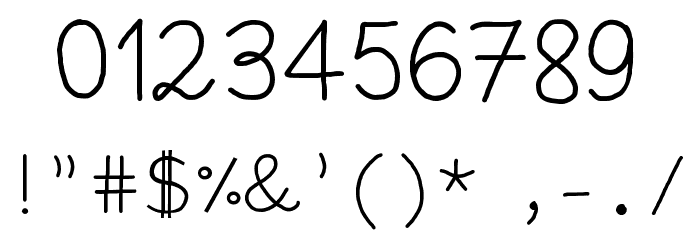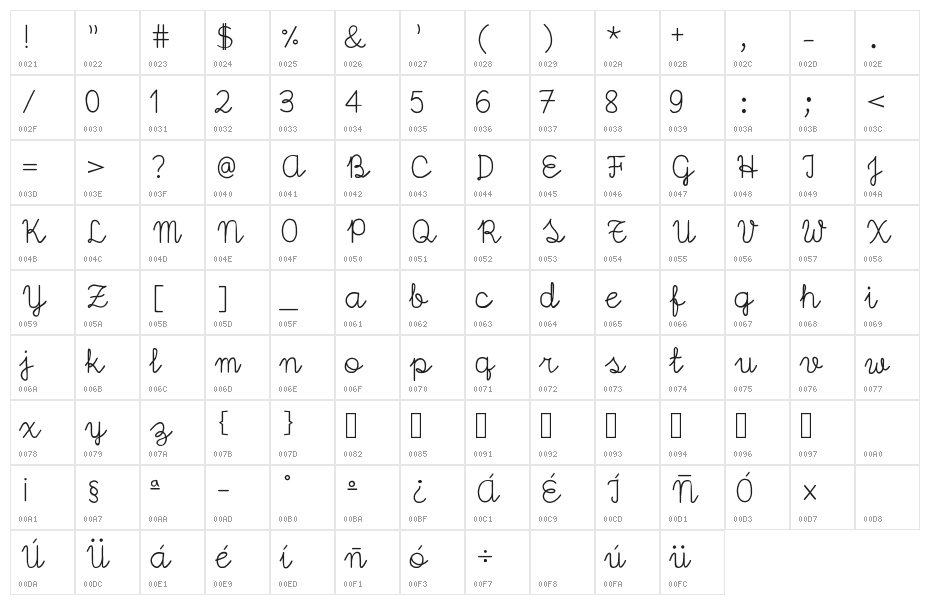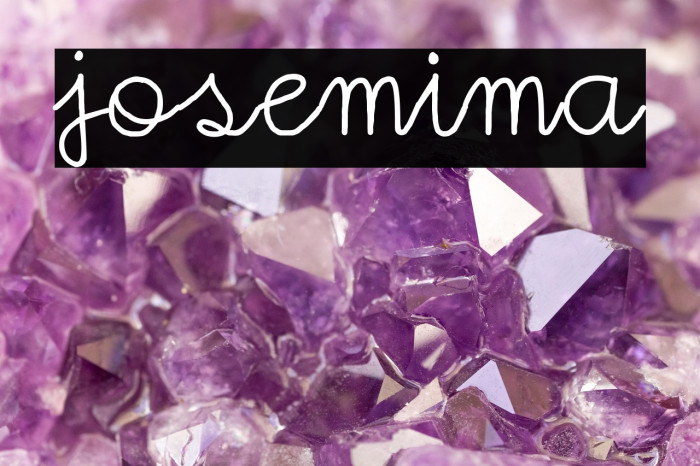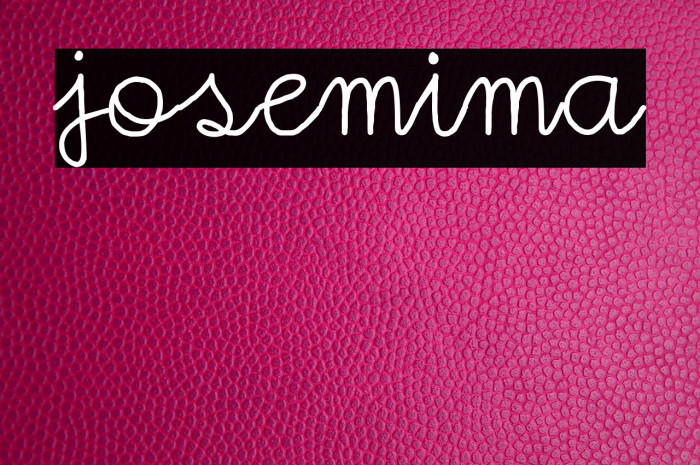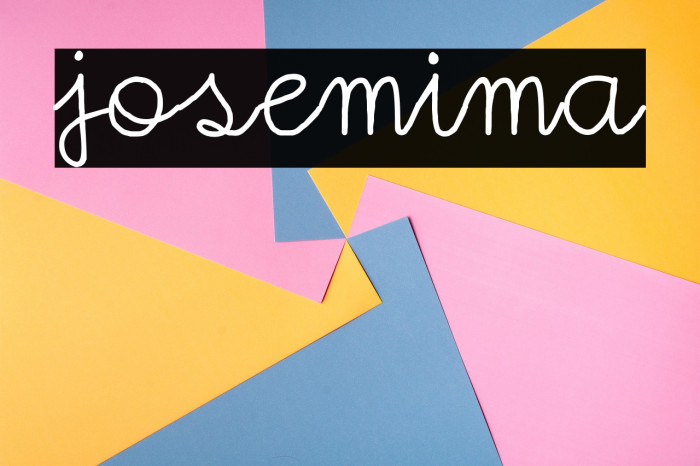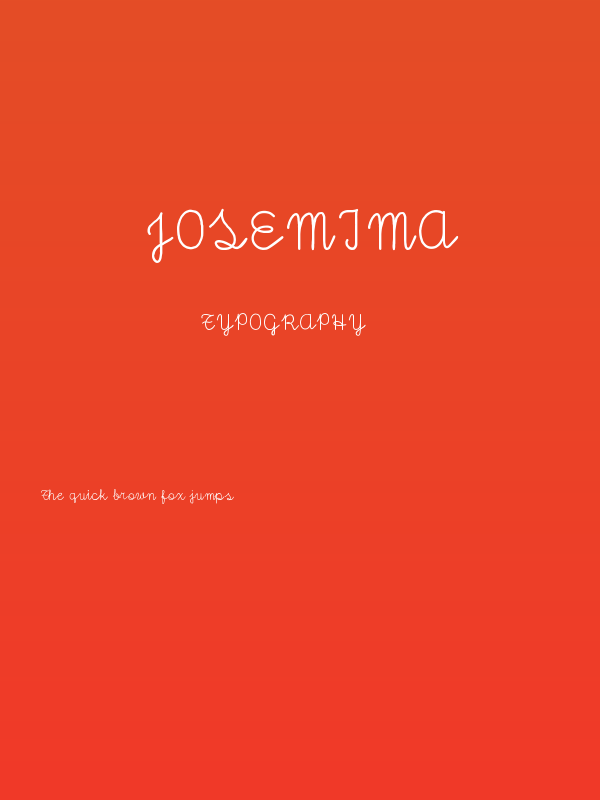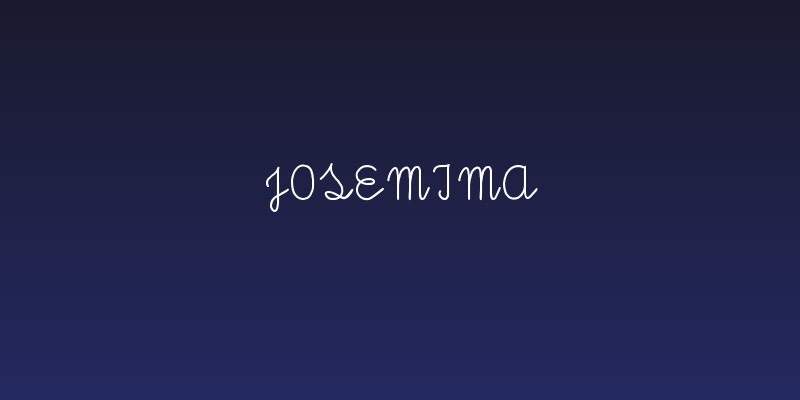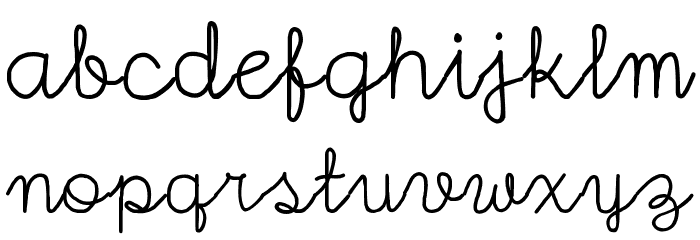
josemima Font
josemima Description
This font features a playful and whimsical script style, characterized by its smooth, flowing lines and rounded edges. Each letter is connected, creating a seamless and continuous look that mimics natural handwriting. The uppercase letters maintain a consistent height, while the lowercase letters exhibit slight variations in size, adding to the font's charm. The numerals are clear and easy to read, with a similar rounded style. Special characters are included, maintaining the same fluid and cohesive design. This font exudes a friendly and approachable vibe, making it suitable for a variety of creative projects.
| Proposed Projects | Ideal for greeting cards, invitations, personal branding, and playful logos. |